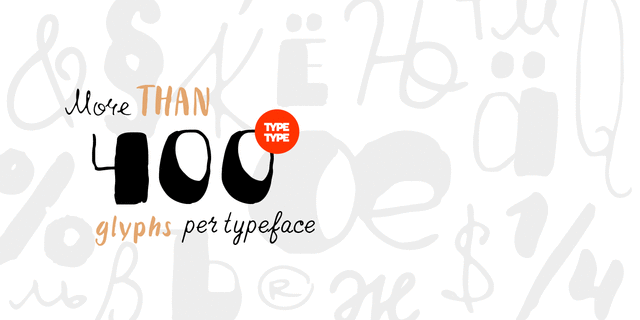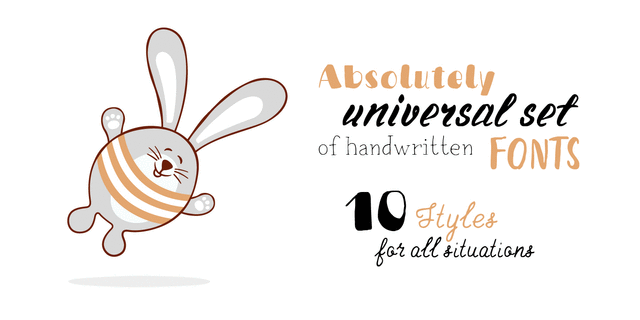
About TT Rabbits GTT Rabbits is a super emotional hand-written fontfamily that unites 10 different fonts. We’ve united these fonts with one common theme — childhood. Use these fonts to create any products for kids — children’s books layouts, mobile applications for children, as well as nursery interior design. We’ve given each rabbit a unique name. The names are arranged as the first 10 letters of the Latin alphabet: A — April, B — Bro, C — Chilli, D — Dummy, E — Elf, F — Fatso, G — Goody, H — Hyper, I — Idol, J — Junior. Each rabbit has its own character, and you’ll definitely like TT Rabbits because of that. We’ve used an individual writing tool for every font. All the fonts were created on paper first and then digitized. Now, what’s your favorite rabbit? Typeface designed by Ivan Gladkikh in TypeType studio in 2016.
Associations for font family TT Rabbits GTypeface personality and character:
manual, funny, frivolous, home, air, informal, playful, easy, interesting, youth, distinctive, affable, alive, cartoonish, summer, spring, thin